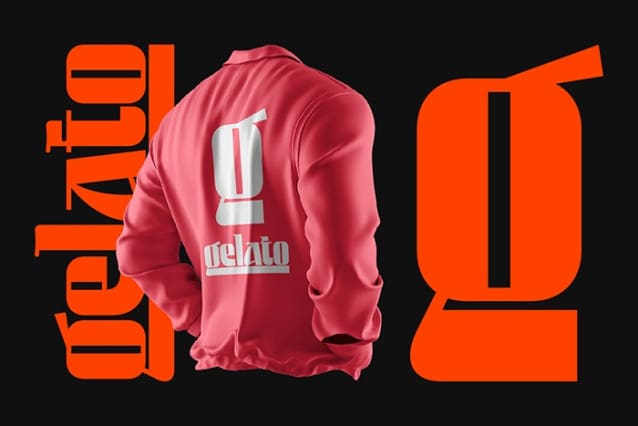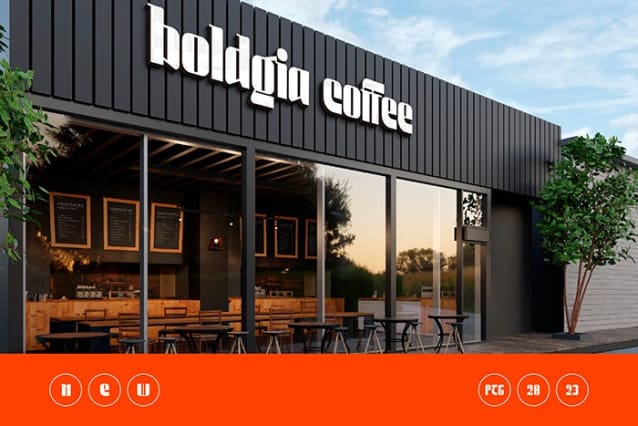
Boldgia Font
Boldgia Font, this typeface has a unique and attractive appearance. Boldgia looks great when combined with solid character fonts.
For branding projects, logos, wedding designs, social media posts, advertisements, product packaging, product designs, labels, photography, watermarks, invitations, stationery, and anything requiring handwritten taste, Boldgia is perfect.